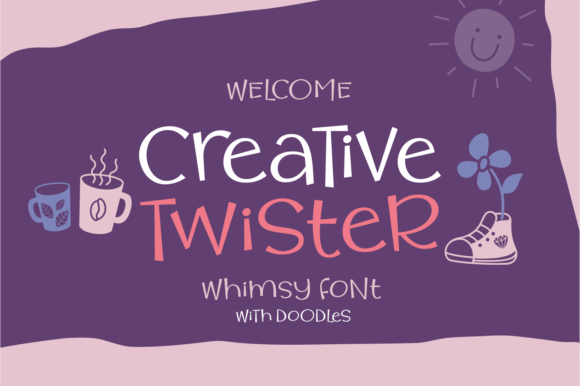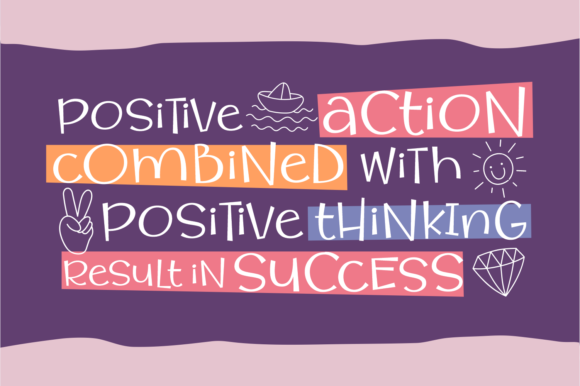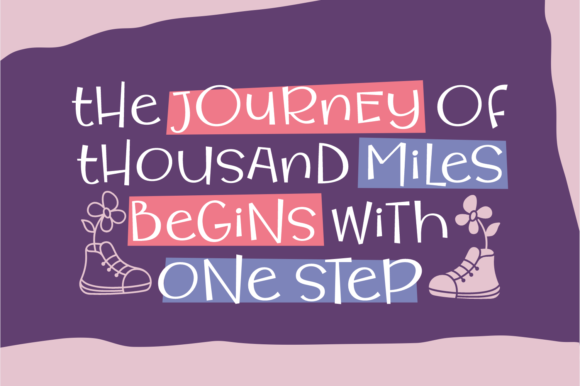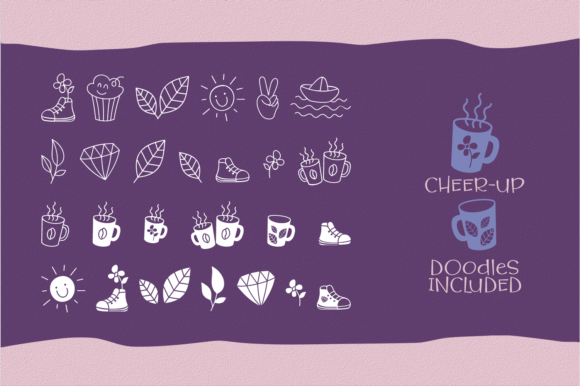
Creative Twister Font
About Creative Twister Font
Creative Twister is a stunning handwritten serif font with a whimsical twist. Use its stunning doodles to add a cheerful vibe to any design project!